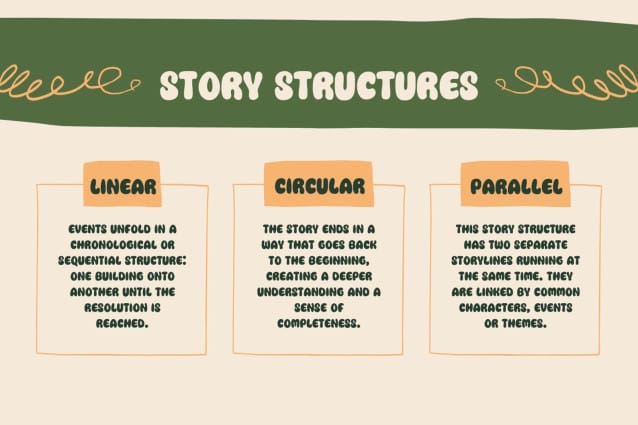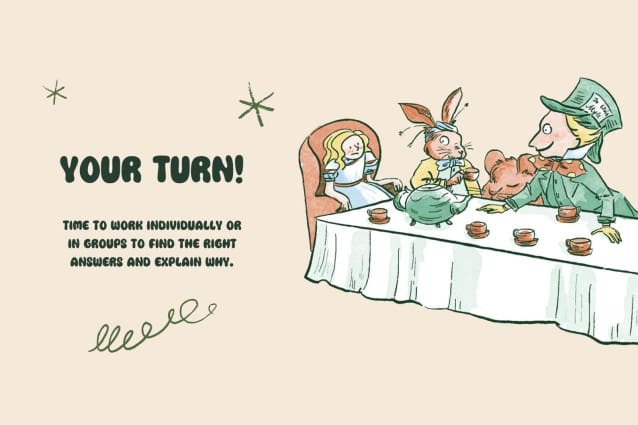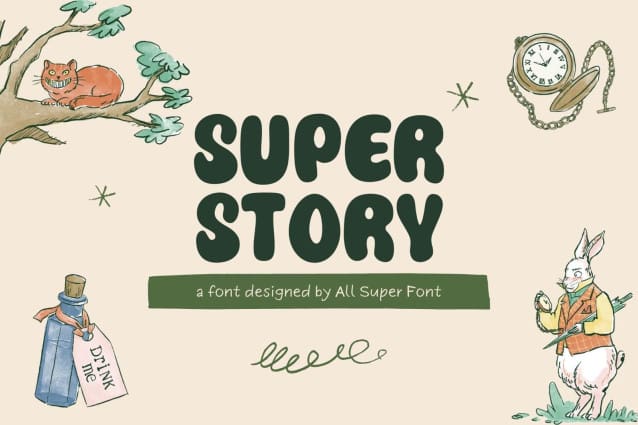
Super Story Font
Super Story Font, a bubbly and casual font that’s bursting with personality. Its rounded, playful characters evoke a sense of fun and adventure, making it the perfect choice for projects that aim to capture the imagination. From storybooks and comics to playful branding and social media graphics, Super Story adds a touch of whimsy and charm.